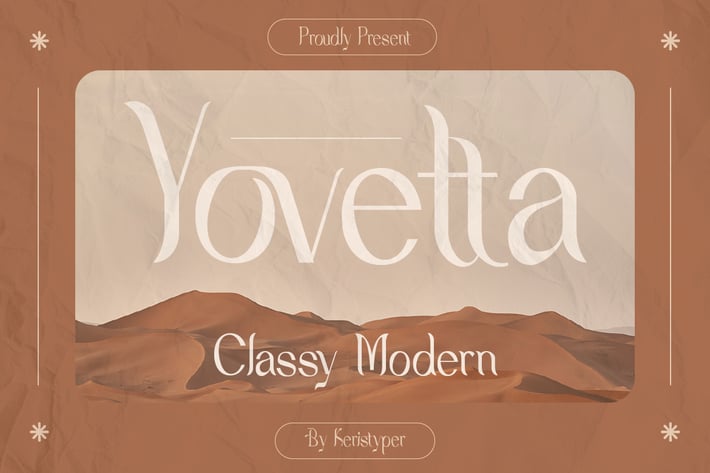
Yovetta Font
Yovetta is an aesthetic sans serif typeface that looks elegant and timeless inspired by nature and classy modern. This font is good for logo design, Social media, Movie Titles, Books Titles, short text even long text letters, and good for your secondary text font with sans or serif.
Featured:
Standard Uppercase & Lowercase
Multilingual : ä ö ü Ä Ö Ü ß ¿ ¡
Alternate & Ligature